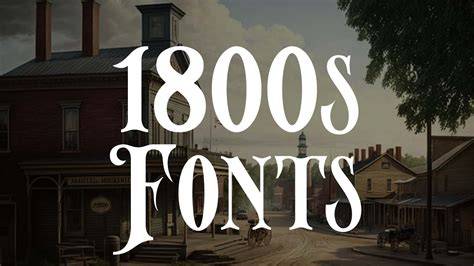
1800 Fonts For Creative Designers In 2023
As the world continues to evolve, so does the need for creative designers. With the ever-growing demand for new and unique designs, it's important for creative professionals to keep up with the latest trends. In 202023, one of the hottest trends is the use of 1800 fonts. With so many options to choose from, it can be overwhelming to decide which fonts are right for your project. That's why we've compiled a list of the best 1800 fonts for creative designers in 2023.
What are 1800 Fonts?
1800 fonts are fonts that have been specifically designed for use with the new 1800 display technology. This type of font is designed to maximize the resolution of the display, creating a crisp, clear image. 1800 fonts are also optimized for use on mobile devices, offering a more streamlined experience for users. 1800 fonts provide a unique design experience for users, allowing them to create unique and eye-catching designs with ease.
Why Should You Use 1800 Fonts?
1800 fonts are the perfect choice for creative professionals who want to make an impact with their designs. These fonts are designed to look great on any screen and can be used to create stunning visuals with minimal effort. 1800 fonts are also designed to be easy to read and understand, making them perfect for web and mobile designs. Additionally, 1800 fonts can be used to create dynamic, engaging visuals that stand out from the competition.
How to Find the Right 1800 Fonts?
The key to finding the best 1800 fonts for your project is to do your research. With so many options to choose from, it's important to find the fonts that fit your unique style and needs. Start by looking for fonts that are optimized for use on the 1800 display technology, as well as those that are optimized for use on mobile devices. Additionally, look for fonts that are easy to read and understand, as well as those that are visually appealing and unique. With a bit of research, you'll be able to find the perfect 1800 font for your project.
1800 fonts are the perfect choice for creative professionals who want to make an impact with their designs. These fonts are designed to look great on any screen and can be used to create stunning visuals with minimal effort. With a bit of research, you'll be able to find the perfect 1800 font for your project. With so many options to choose from, you're sure to find the perfect font for your project in 2023.